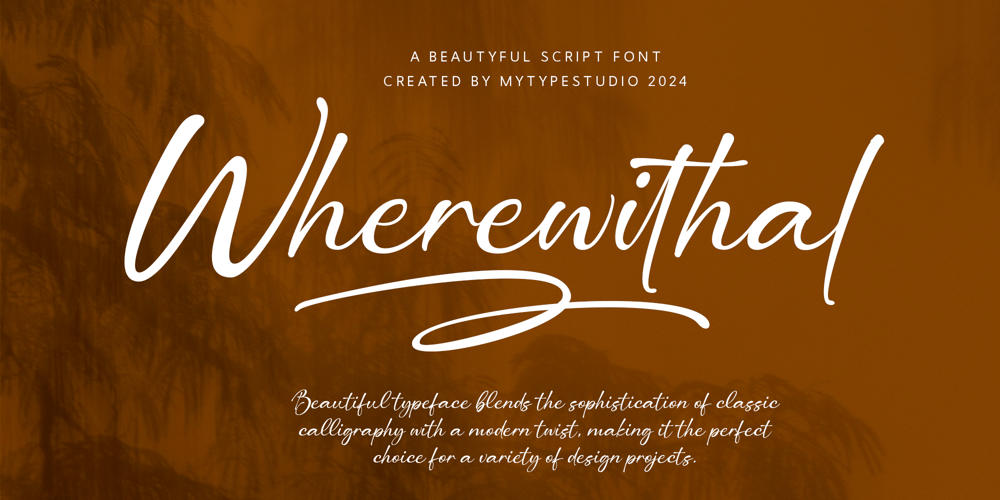
Wherewithal Font Family was designed by Mhd Husaini and published by SimpleType Studios. Wherewithal contains 1 styles and family package options. Elevate your designs with the refined elegance of Wherewithal, a stunning script font meticulously crafted by Mytype Studio. This beautiful typeface blends the sophistication of classic calligraphy with a modern twist, making it the perfect choice for a variety of design projects.Font Features: Elegant Design: Wherewithal exudes grace and charm, with each letter carefully designed to flow seamlessly and create a harmonious look. Versatile Usage: Ideal for wedding invitations, greeting cards, logos, branding materials, social media posts, and more. Stylish Swashes: Add a touch of flair to your text with the stylish swashes and ligatures included in the font, providing endless creative possibilities. High Legibility: Despite its intricate design, Wherewithal maintains excellent legibility, ensuring your message is always clear and captivating. Why Choose Wherewithal? Wherewithal is more than just a font; it’s an experience. Whether you’re designing for personal projects or professional clients, this font will bring a touch of elegance and sophistication to your work. Its timeless appeal and versatility make it a must-have addition to your font collection.Get Creative with Wherewithal Unlock your creativity and let Wherewithal inspire your next project. Its elegant script style is perfect for creating memorable and impactful designs that stand out. With Wherewithal, every letter tells a story of elegance and refinement.